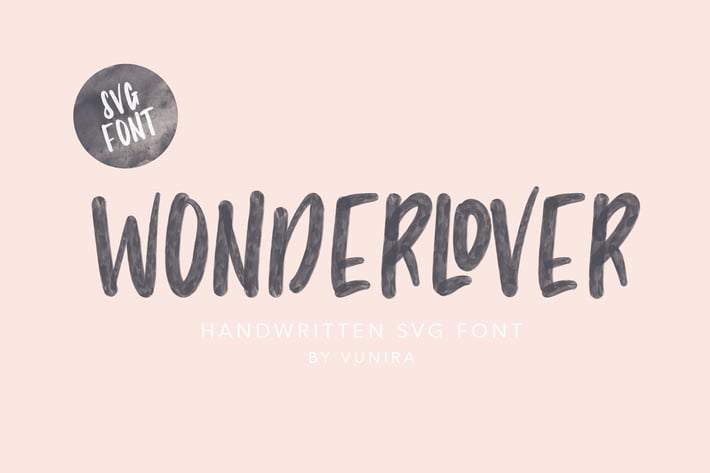
Wonderlover | Handwritten Svg Font
Wonderlover | Handwritten Svg Font with a calligraphy style, So beautiful on invitation like greeting cards, branding materials, business cards, quotes, posters, and more!